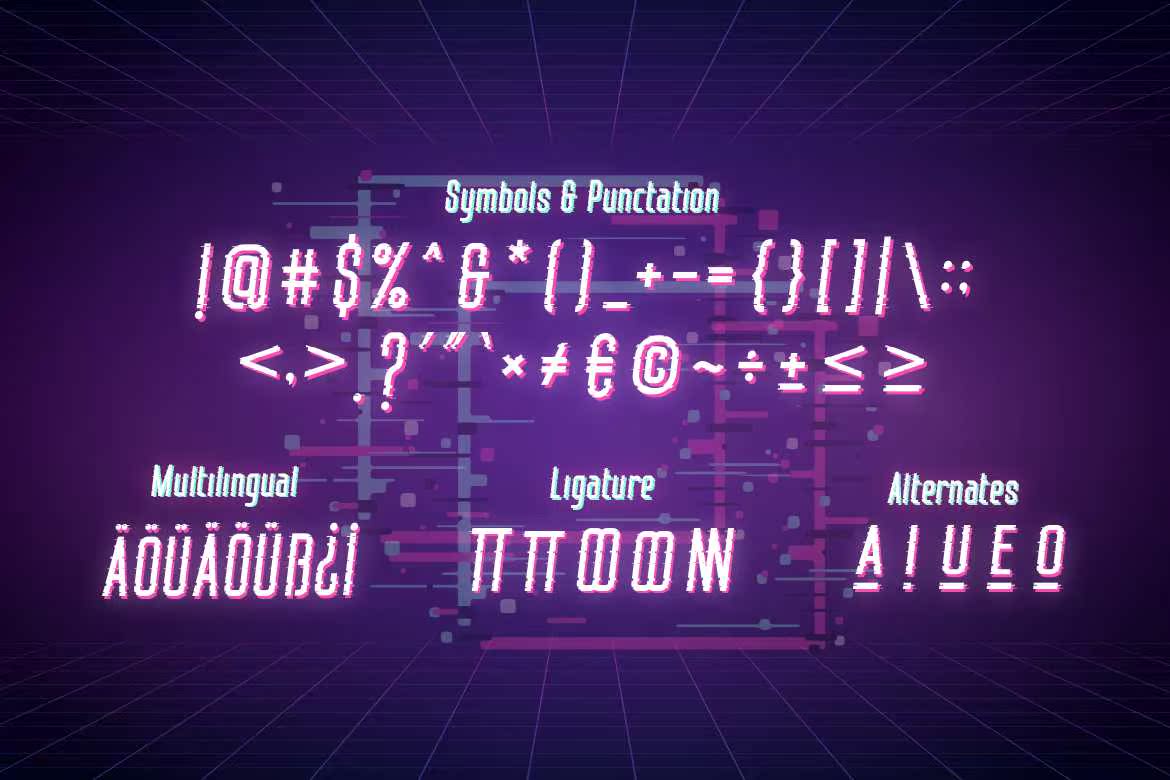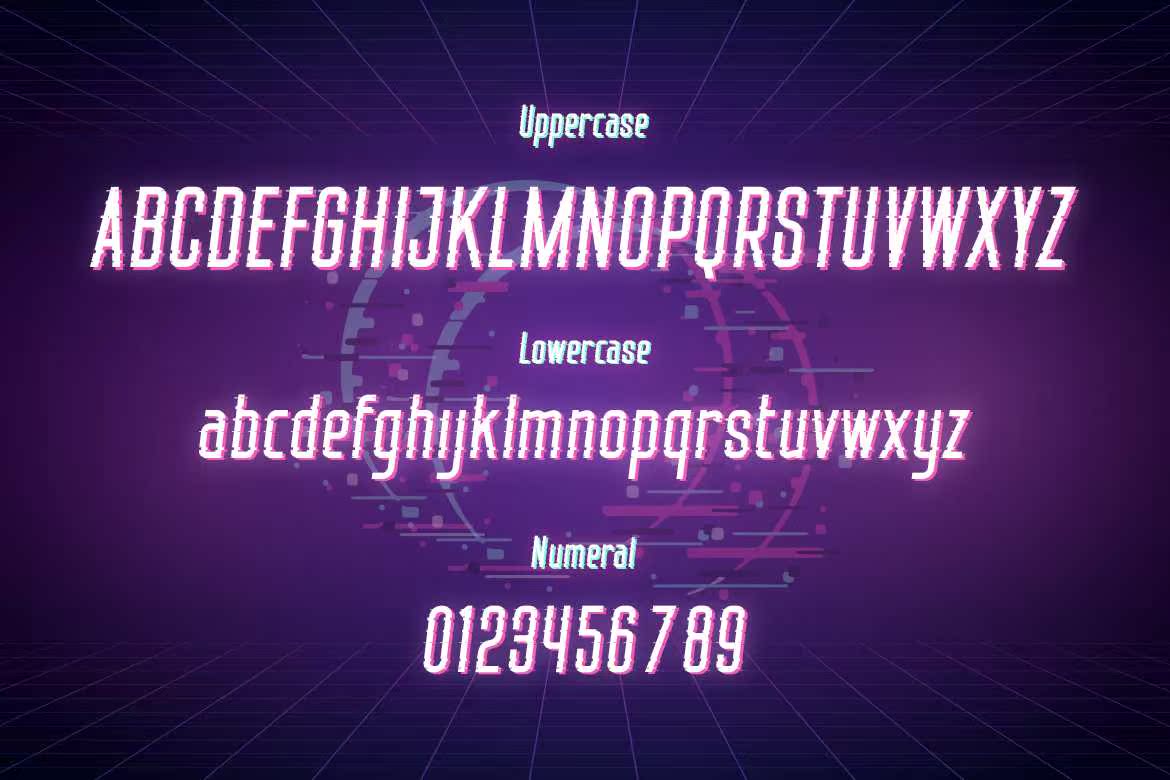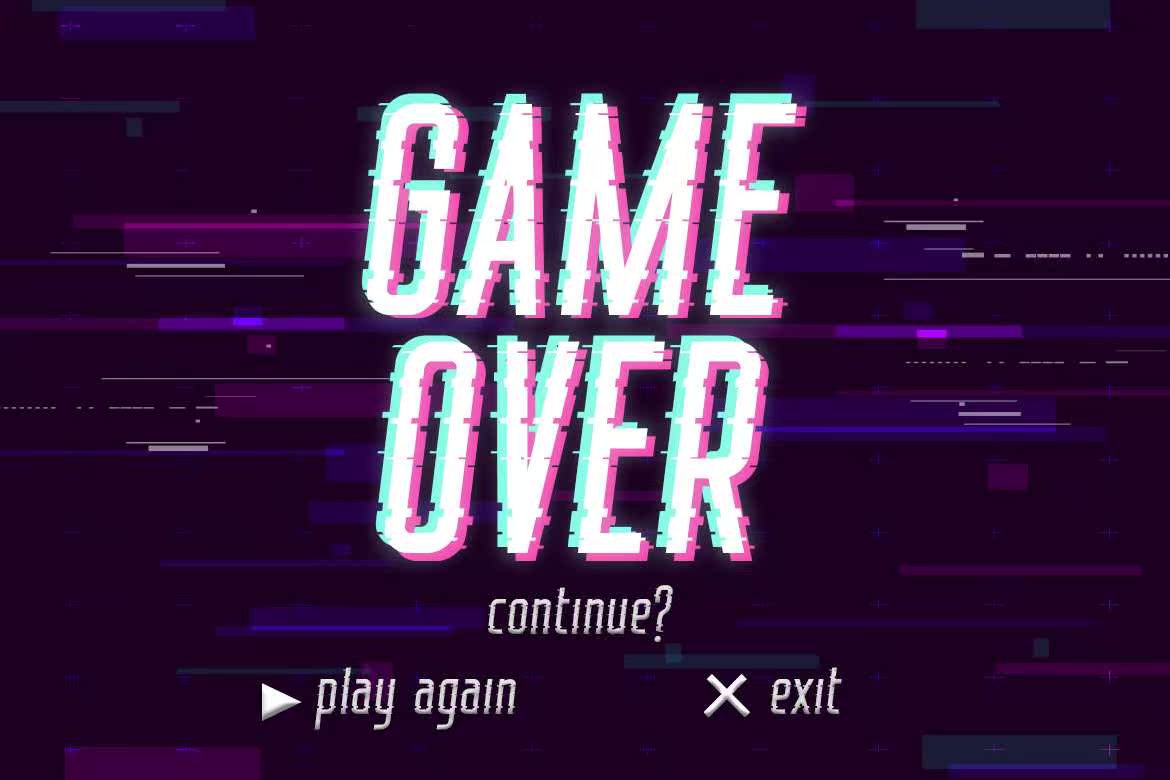
UnCrackDistailedLitchStyleFont,idealforgaming,musicandmoviepostersorothergraphics.FullVersionDownload此处:UnCrackDistailedLitchStyleFont,idealforgaming,musicandmoviepostersorothergraphics.FullVersionDownload此处: